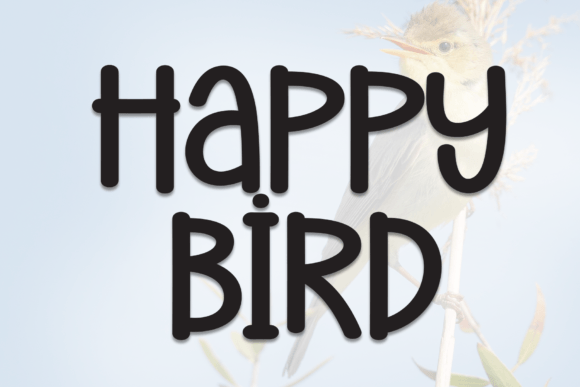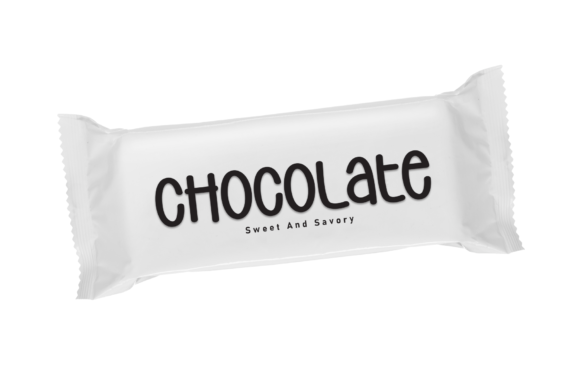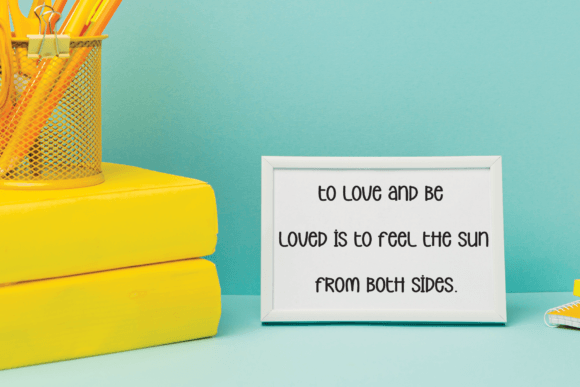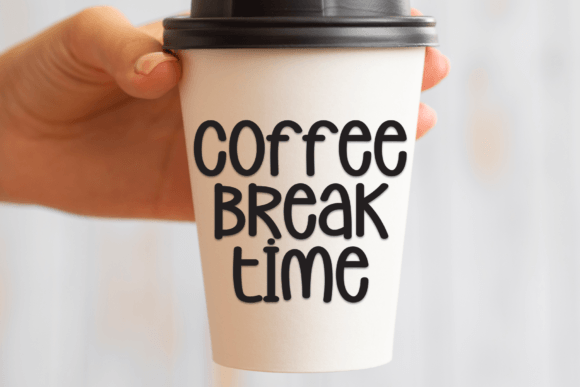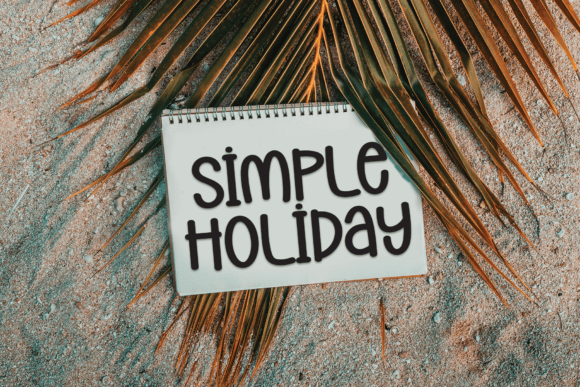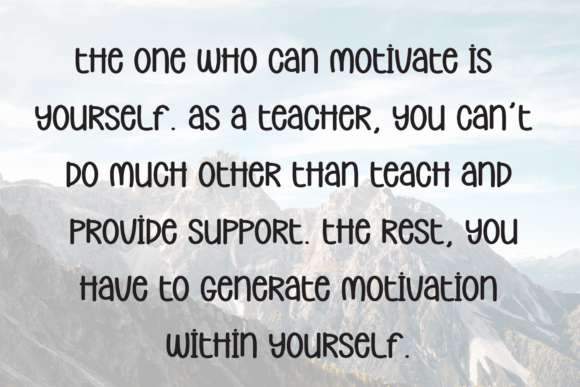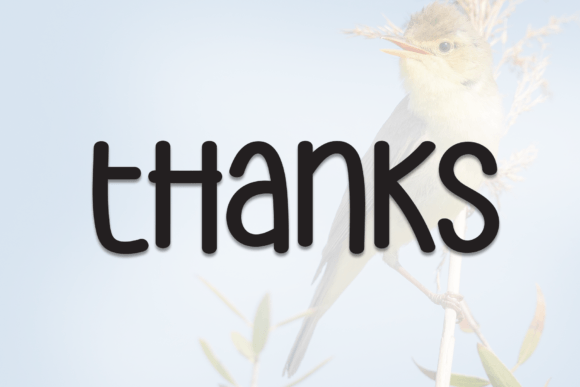
Have you ever sat down at your desk, surrounded by scraps of paper, half-empty cups of coffee, and a million ideas floating in your head? It’s a familiar scene for many creatives, and it’s often the spark that sets a new project ablaze. For me, it was a brainstorming session that led to the discovery of the perfect font to match my playful idea – the Happy Bird Font.
This sweet and friendly handwritten font is a breath of fresh air for designers looking to add a fun touch to their projects. Whether it’s a wedding invitation, a birthday card, or a social media post, the Happy Bird Font is the perfect companion to bring a smile to your audience’s faces.
Happy Bird Font Key Features
- Character Set: The font includes a wide range of characters, including uppercase and lowercase letters, numbers, punctuation marks, and special characters.
- Size and Resolution: Happy Bird Font is designed to be highly legible at various sizes, with a recommended minimum size of 12 points and a resolution of 300 DPI for optimal display.
- Unique Characteristics: The font features a unique, playful design with a mix of rounded and pointed shapes, giving it a friendly and approachable feel.
Happy Bird Font Review
I was excited to dive into the Happy Bird Font, and overall, I have mixed feelings about it. There are some things that I really like, but also some limitations that make it not quite perfect.
- The font has a unique and playful vibe that could be great for children’s books, nursery decor, or any project that needs a fun and whimsical touch.
- The font is highly customizable, allowing for a wide range of size and color options.
- The font is also very legible, making it easy to read even at smaller font sizes.
- The font feels a bit overused and lacks originality, which might make it harder to stand out in a crowded market.
- The font is not suitable for formal or professional projects, as it may come across as too playful or childish.
- The font is not ideal for projects that require a lot of text, as it can be a bit too ornate and distracting.
Overall, I think the Happy Bird Font has some great qualities, but it’s not a one-size-fits-all solution. It’s perfect for projects that need a playful touch, but may not be the best choice for more formal or complex projects.
Tips for Getting the Most Out of Happy Bird Font
For best results, use Happy Bird Font in conjunction with bright and playful colors. Experiment with different font sizes and styles to add visual interest to your design.
Happy Bird Font is ideal for children’s party invitations, nursery decor, and educational materials. It’s also a great choice for social media graphics and marketing materials that need a playful touch.